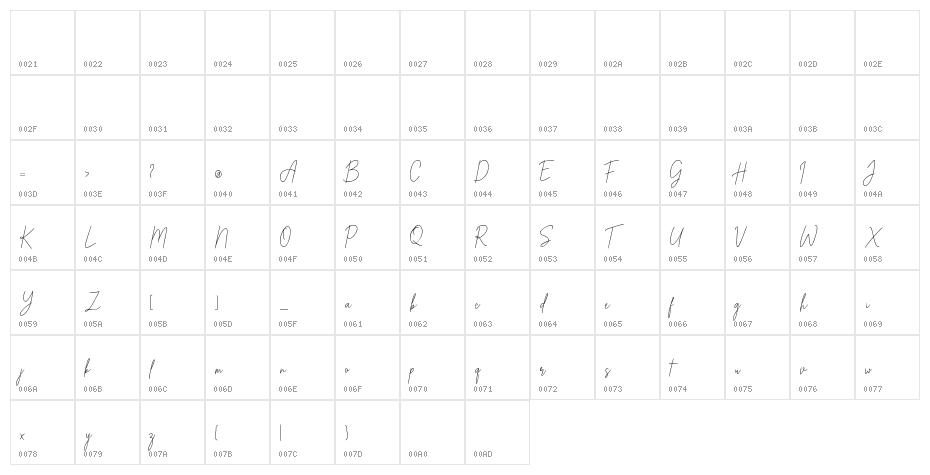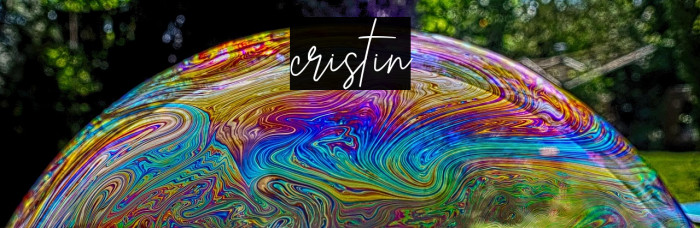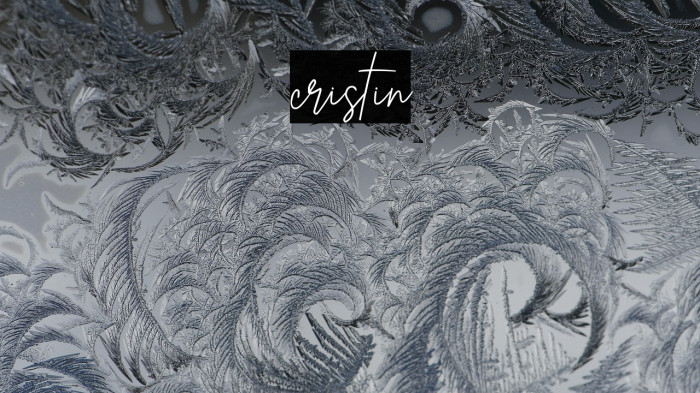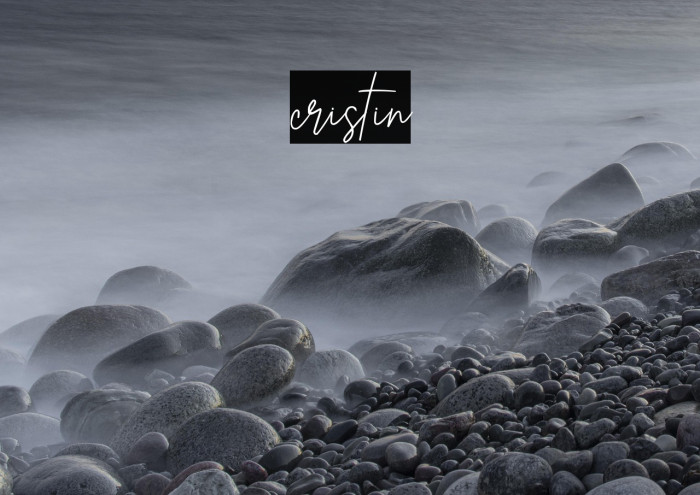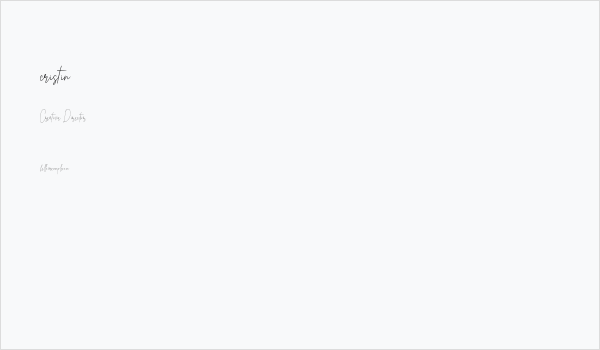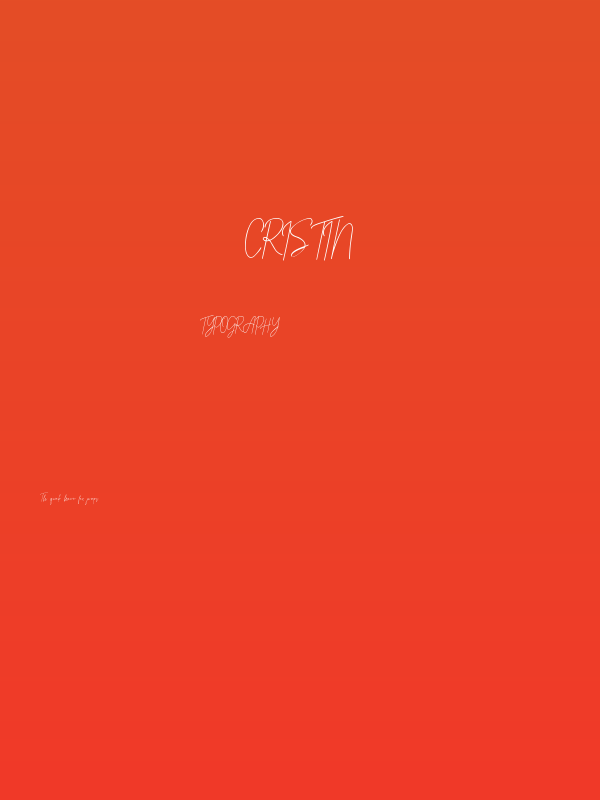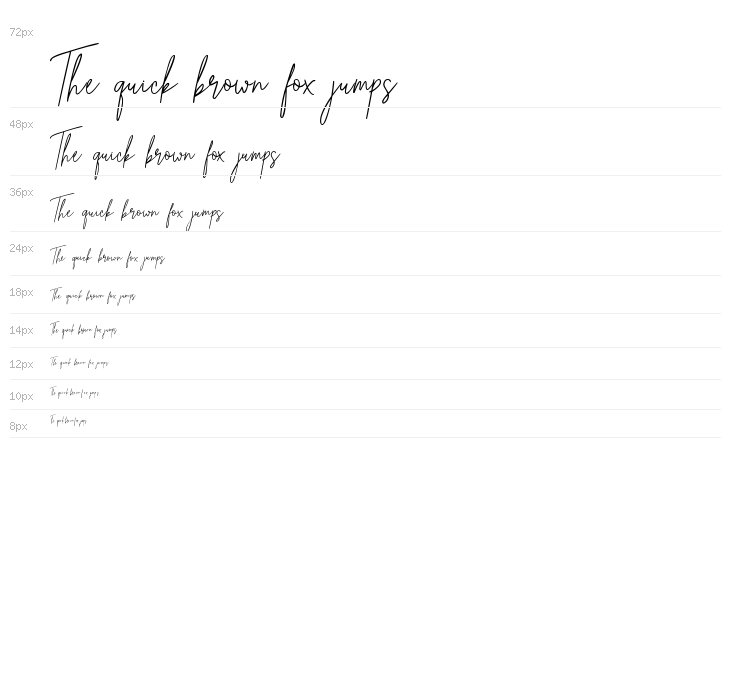
cristin Font
cristin Description
This font features a delicate and elegant handwritten style, characterized by its flowing and interconnected letterforms. The strokes are thin and graceful, giving it a refined and sophisticated appearance. The uppercase letters are tall and slightly slanted, while the lowercase letters maintain a consistent flow with subtle variations in height and width. This font exudes a sense of elegance and personal touch, making it ideal for projects that require a personal or artistic flair. The overall design is clean and legible, with a touch of whimsy that adds character without compromising readability.
| Proposed Projects | Ideal for wedding invitations, personal branding, greeting cards, and artistic projects. |